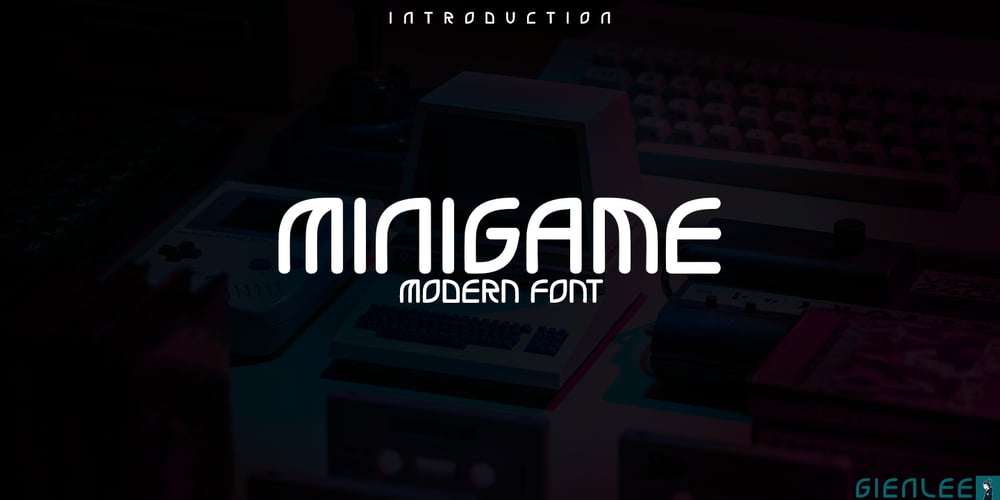
Minigame Font Family was designed by Genta Putra and published by Gienlee. Minigame contains 1 styles and family package options. DescriptionYo! Welcome to gienlee cartoon, design, and Other artworkMinigame is Modern Font. Commonly used to promote any tech and modern stuff kind of life. It’s a futuristic text for the Generation Alpha lifestyle and higher.Item Description Standard Glyphs (Uppercase, Lowercase, Numeral & Punctions) Works on PC & Mac No Special Software is required Do enjoy your download